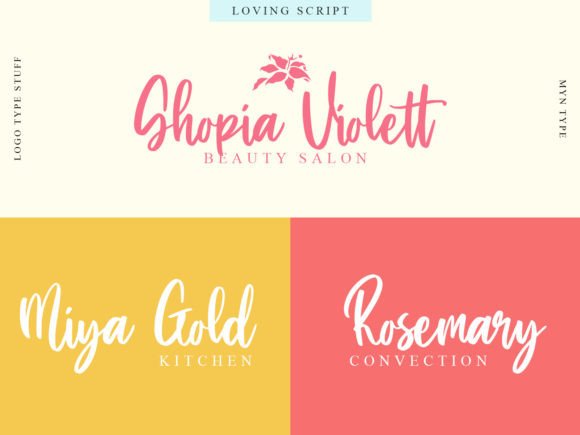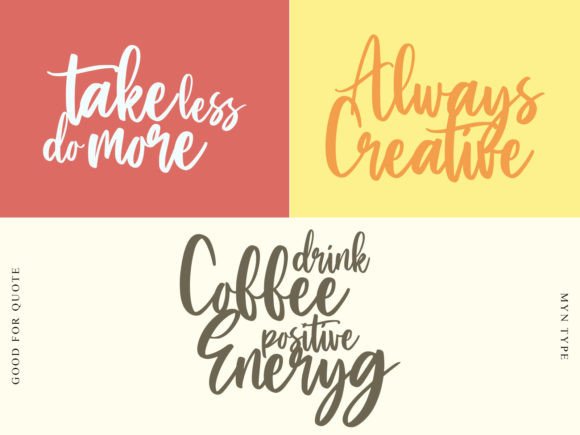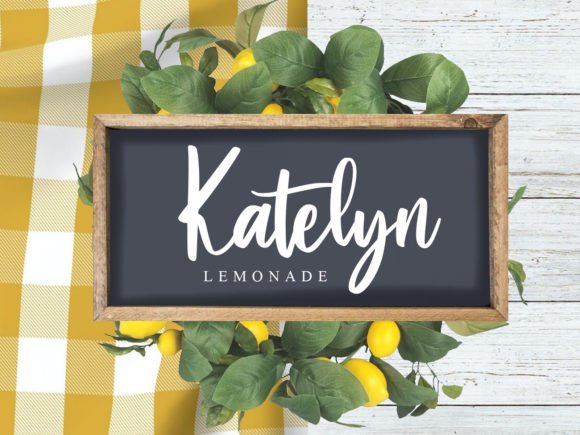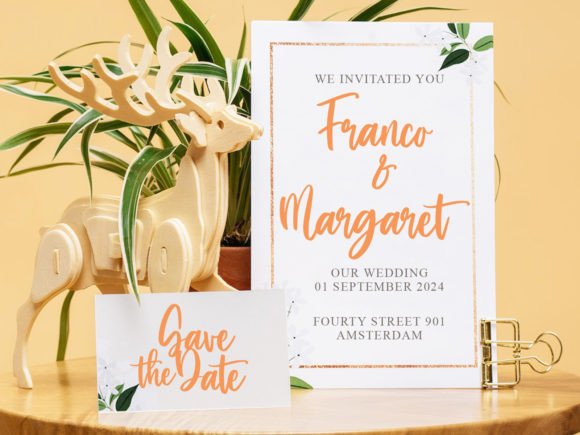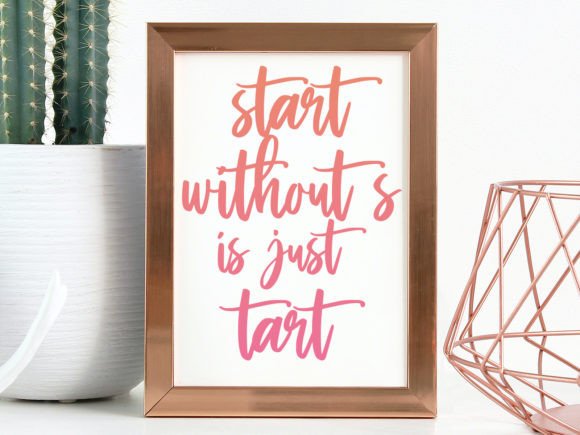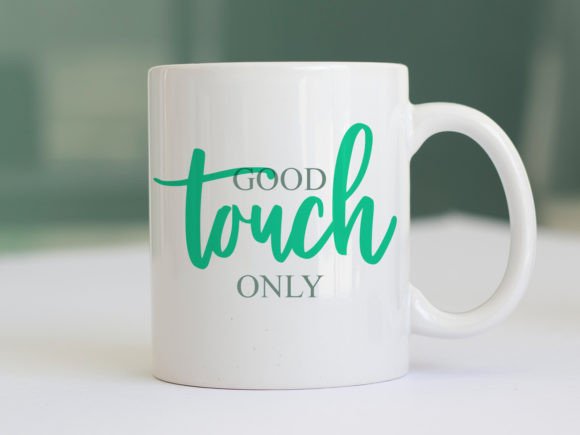
Introduction to Loving Script Font
Do you remember that moment when you finally found the perfect font for your creative project? The one that made your design pop, yet felt authentic and genuine? For many designers, that moment is a game-changer. And today, we’re excited to introduce you to a font that will make that moment happen time and time again: the Loving Script Font.
This beautiful, handwritten font is more than just a pretty face – it’s a versatile design resource that’s perfect for a wide range of creative projects. With its natural, unique style, the Loving Script Font is incredibly high quality and will add a touch of warmth to any design. Whether you’re working on a project with a transparent background or looking for a font to pair with a bold image, this font is sure to impress.
Key Features of Loving Script Font
- Unique Hand-Drawn Style: Loving Script Font features a beautiful, hand-drawn design perfect for creative projects that require a personal touch.
- Perfect for Wedding Invitations and More: The elegant and romantic design of Loving Script Font makes it ideal for wedding invitations, wedding stationery, and other special occasions.
Honest Review: Loving Script Font
As a designer, I’m always on the lookout for high-quality fonts that can elevate my creative projects. I recently had the chance to work with the Loving Script Font, and I must say, it’s a great addition to my design resource library.
What works well: ✨ The Loving Script Font is incredibly versatile and can be used for a wide range of design applications, from wedding invitations to social media graphics. The font is also very easy to read, even at smaller font sizes.
What I like most about the Loving Script Font is its high-quality design. The font is well-crafted, with smooth lines and a consistent feel. It’s also available for free download, which is a major plus in my book.
However, I do have a few criticisms. ⚠️ The font is not suitable for body text, as it can be a bit too ornate for large blocks of text. Additionally, the font is not available in as many font weights as I would like.
Overall, I’m very impressed with the Loving Script Font. It’s a great design resource that can add a touch of elegance to any creative project. With its high-quality design and free download option, it’s definitely worth checking out.
Use the Loving Script Font on a high quality, transparent background to give your design a professional look. Experiment with different font sizes and colors to create a unique and creative project.
The Loving Script Font is ideal for wedding invitations, baby shower invitations, and other special occasion designs. It’s also great for creating quotes, social media graphics, and other design resources.